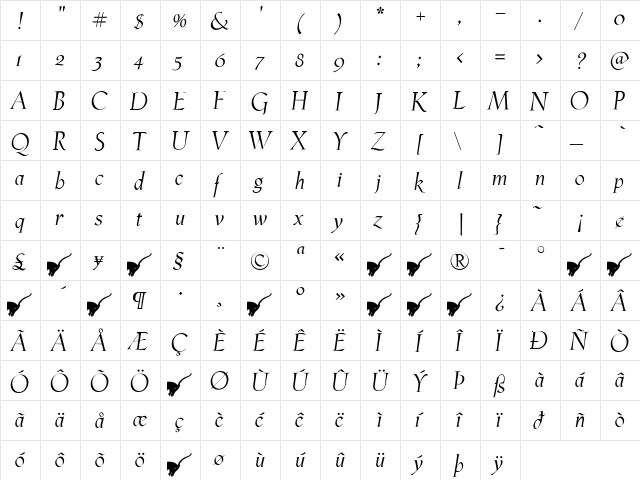
PhaistosItalic Italic
Design Context for PhaistosItalic Typeface
PhaistosItalic is a composed and adaptable typeface that performs quietly and consistently across a wide range of design contexts. Its italic angle brings a sense of urgency and motion to the letterforms.
Pro Tip: Try PhaistosItalic for annotation and caption copy alongside an upright companion — the contrast in angle creates a dynamic but ordered typographic system.